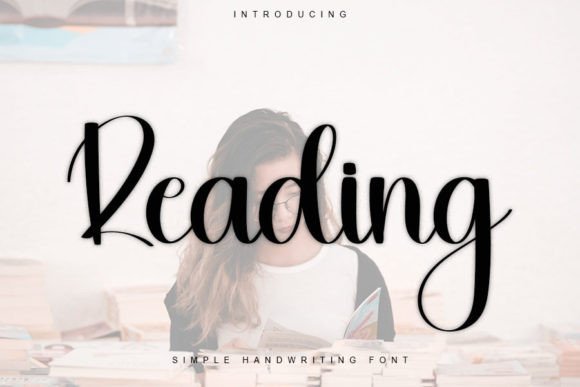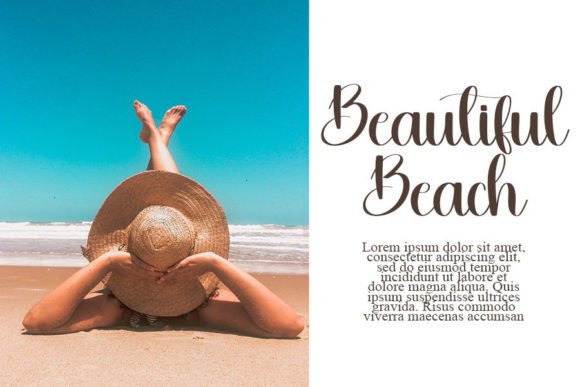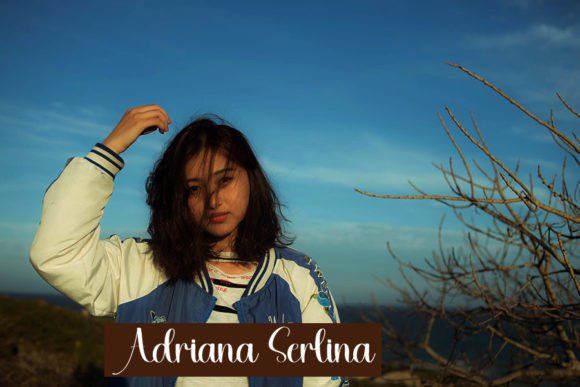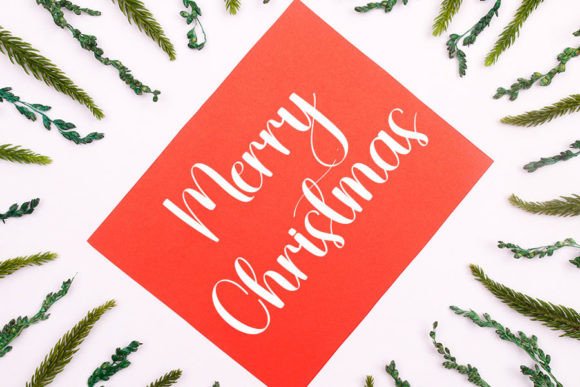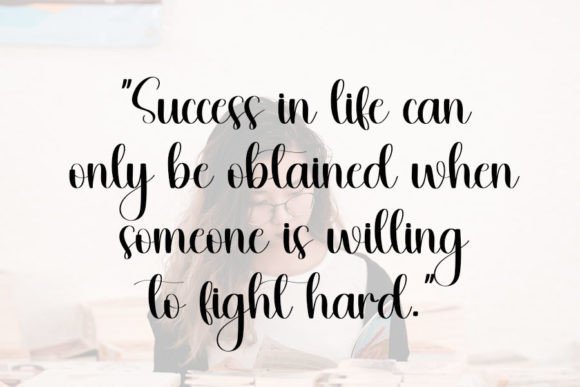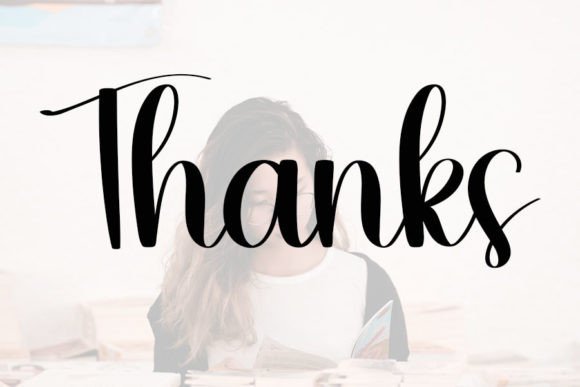
Reading Font
Add Friendly Simplicity with Reading Font
The Reading font is a simple and friendly handwritten script designed to bring warmth and approachability to your creative projects. Whether you’re working on crafts, digital designs, presentations, or greeting cards, Reading offers a versatile and inviting style suitable for any occasion.
Perfect for Crafts, Presentations, and Greeting Cards
The Reading font fits perfectly in a wide range of applications including handmade crafts, social media graphics, product packaging, event materials, and personalized stationery. Its clean and natural strokes give your designs a polished and approachable look.
A Handwritten Script with Natural Flow
Each character in the Reading font is crafted to ensure smooth flow and excellent readability. The font’s simple and friendly style helps your text feel authentic and personable, making it ideal for headlines, logos, and body text alike.
Despite its simplicity, the Reading font maintains excellent readability across various sizes. Whether used for large titles or smaller text elements, it offers clarity without sacrificing style, making it a reliable choice for many creative projects.
Make Your Designs Shine with Warmth and Approachability
Typography sets the tone for your work, and Reading adds a friendly and inviting spirit. Perfect for creatives seeking a simple handwritten script, download the Reading font today and bring warmth and style to your projects.